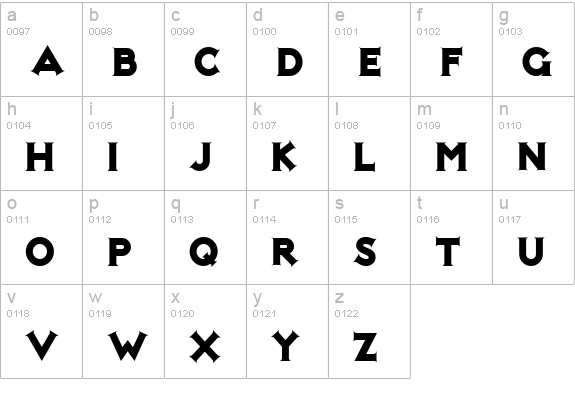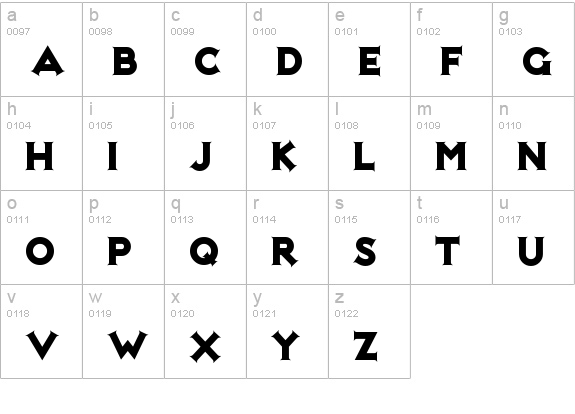
NotMaryKate Font Details
Introducing NotMaryKate font, a versatile and elegant typeface that exudes sophistication and charm. This unique font combines classic elements with a modern twist, making it perfect for a wide range of design projects. With its stylish letterforms and distinct personality, NotMaryKate font adds a touch of creativity to any creative endeavor. What sets NotMaryKate font apart is its versatility - whether you're designing a logo, creating branding materials, or crafting invitations, this font is sure to make a statement. Its clean lines and graceful curves give it a timeless appeal that can easily adapt to any design style. What's more, NotMaryKate font is available for free download at FontsMarket.com, making it easily accessible to designers and creatives looking to elevate their projects. Don't miss out on the opportunity to add this stunning font to your collection - download NotMaryKate font today and let your creativity shine!